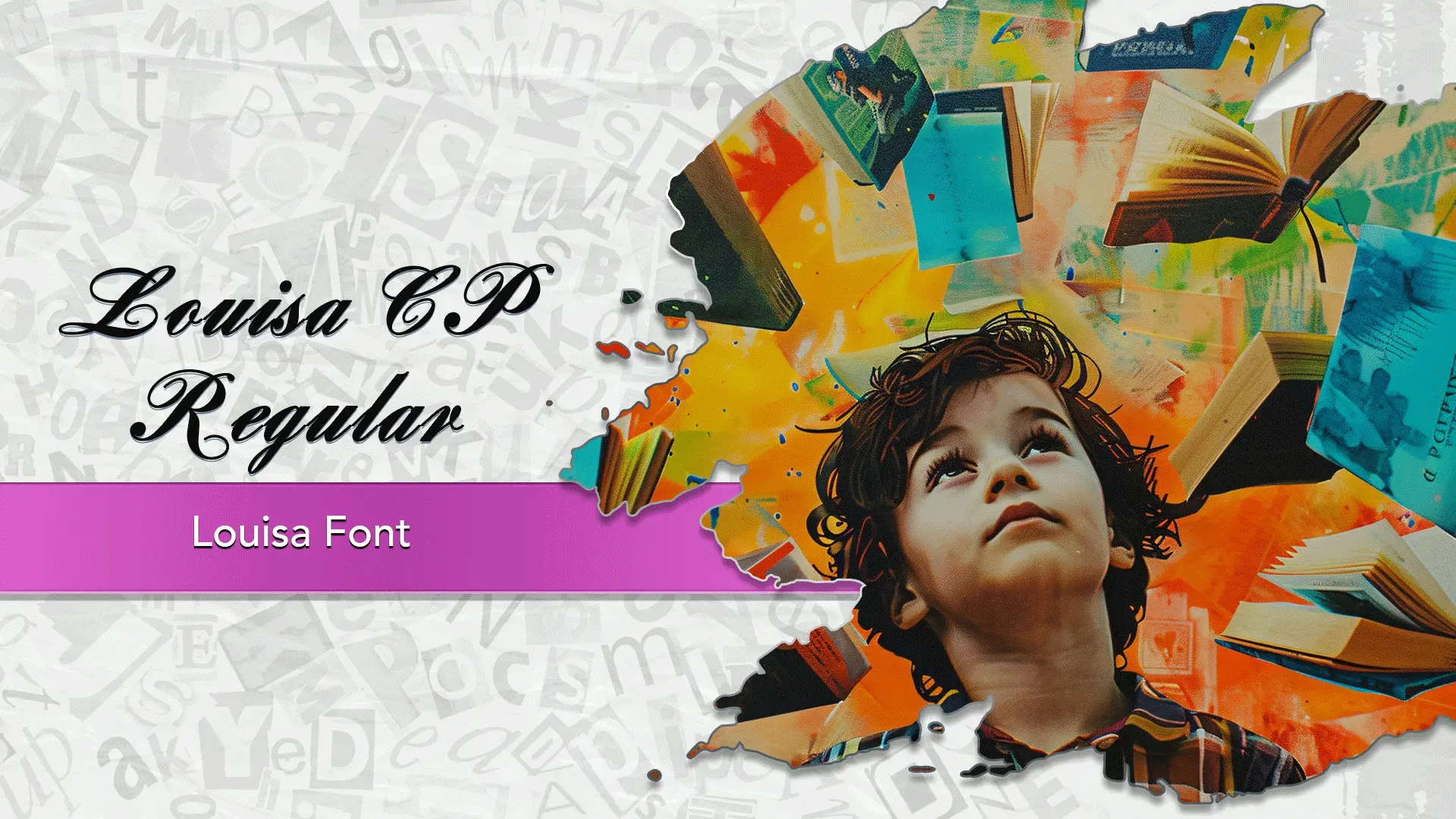
The Louisa font family may be ideal for you if you enjoy working on an artistic design project. The lively, expressive look of this typeface, which was created by Julia Hanft, makes it ideal for Creative and Whimsical Projects(Crafts and DIY, Invitations and Announcements), Display and Short Text(Posters and Flyers, Social Media Graphics, Children's Books or Materials), Casual Branding and Packaging for Small businesses or artisan products and other light-hearted visual projects.
Regular are the one primary font styles of the Louisa font family. You may build dynamic, visually appealing text layouts with the distinct flair that each style offers. With crisp, readable lines and a relaxed tone.